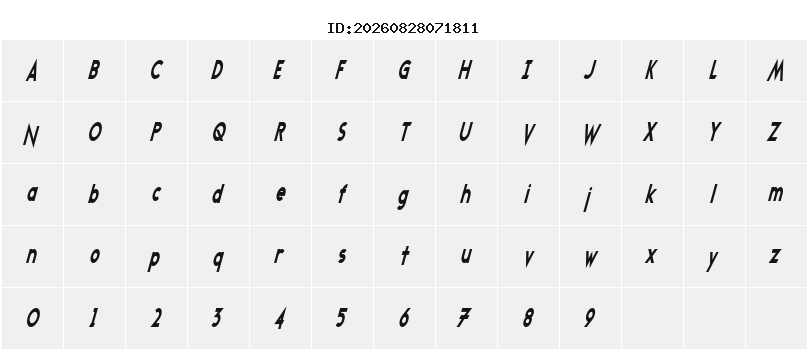
Transmetals Condensed Preview
• Font Name: Transmetals Condensed
• Font ID: Transmetals Condensed Italic:Version 1.00
• Full Font Name: Transmetals Condensed Italic
• Version: Version 1.00 April 23, 2013, initial release
• PostScript Name: TransmetalsCondensed-Italic
• Designer: Neale Davidson
About Transmetals Condensed.ttf
Transmetals Condensed.ttf is a modern, elegant sans-serif font designed for ultimate readability and visual harmony. Perfect for branding, headlines, web design, and print materials.